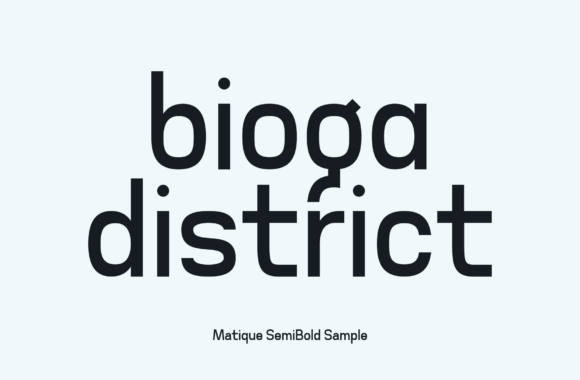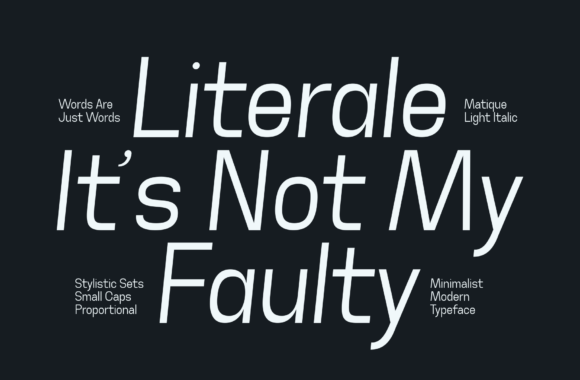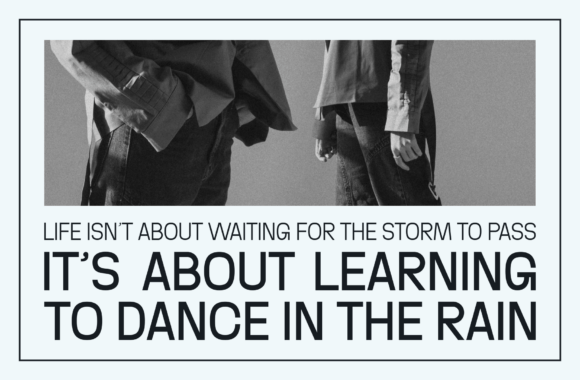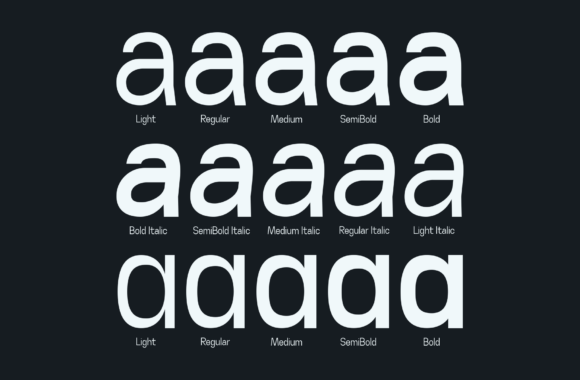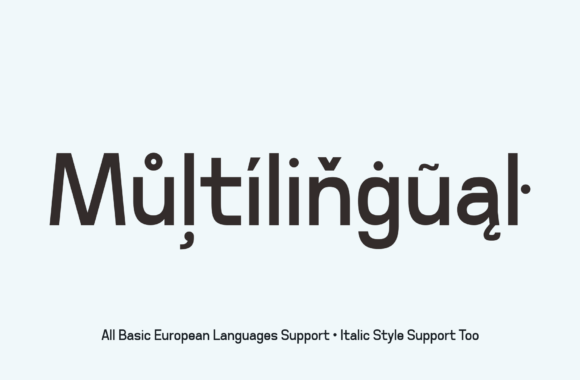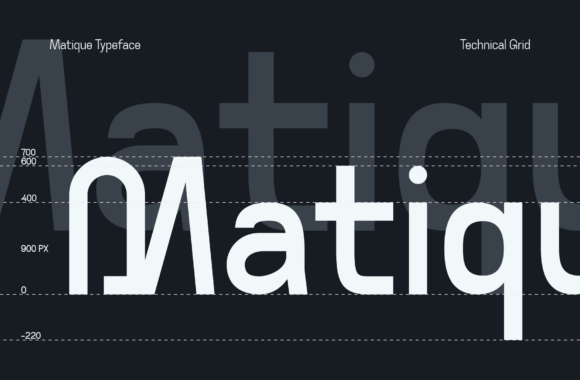
Introduction to Matique Font
As a designer, you’ve probably found yourself staring at a blank canvas, struggling to bring your creative vision to life. The cursor blinks impatiently, waiting for the perfect font to spark your imagination. That’s where Matique Font comes in – a game-changing typeface family designed to elevate your design projects to the next level.
With its clean, geometric lines and subtle stylistic innovations, Matique Font offers a high-quality design resource that’s perfect for creative projects of all kinds. Whether you’re working on a branding campaign, designing a digital interface, or crafting a beautiful editorial piece, this versatile font family has got you covered. And the best part? It’s available for free download, making it an invaluable asset for designers of all skill levels.
So why is Matique Font such a valuable tool for designers? For starters, its semi-bold weight strikes a perfect balance between modern rigidity and organic form, ensuring both readability and character. Plus, its comprehensive set of ten styles, available in both Regular and Italic variants, provides endless possibilities for experimentation and creativity. With Matique Font, you can unleash your imagination and bring your design projects to life with confidence and style.
Key Features of Matique Font
- High-quality, professional font design ideal for creative projects
- Unique, modern design with a transparent background, allowing for seamless integration with any background image or color
- Includes a range of weights and styles, providing flexibility and versatility for any creative project
Honest Review: Matique Font
I recently had the chance to try out the Matique Font, and I must say it’s a high-quality design resource that has some great features. One of the things that stands out about this font is its versatility – it’s perfect for a creative project where you need a clean, modern look. I also appreciate that it’s available for free download, which is a great bonus for designers on a budget.
The font itself is a sans-serif design with a transparent background, which makes it easy to use on a variety of backgrounds. I also like that it comes in a range of weights, from light to bold, which gives you a lot of flexibility when it comes to choosing the right style for your design.
- Range of weights available
- ⚠️ Limited character set
- ⚠️ Not ideal for complex typography
Overall, I’m impressed with the Matique Font, and I think it’s a great addition to any designer’s toolkit. While it may have some limitations, its versatility and high-quality design make it a great choice for a wide range of creative projects.
Tips for Getting the Most Out of Matique Font
To get the most out of the Matique Font, experiment with different font sizes, colors, and styles to create a unique design. Combine the font with other design resources, such as images and shapes, to create a visually appealing creative project.
Common Use Cases for Matique Font
Yes, Matique Font is designed to work well with transparent backgrounds. Since it’s a vector-based font, you can easily customize its background to suit your design needs. This makes it an excellent choice for creative projects that require a clean and minimalist look.